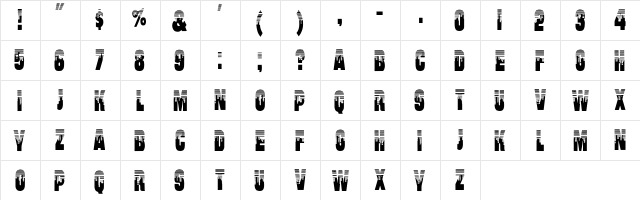
Will-Harris Regular Font Preview
Will-Harris Regular
Will-Harris Regular Font Details
Design Context for Will-Harris Typeface
Will-Harris is a composed and adaptable typeface that performs quietly and consistently across a wide range of design contexts.